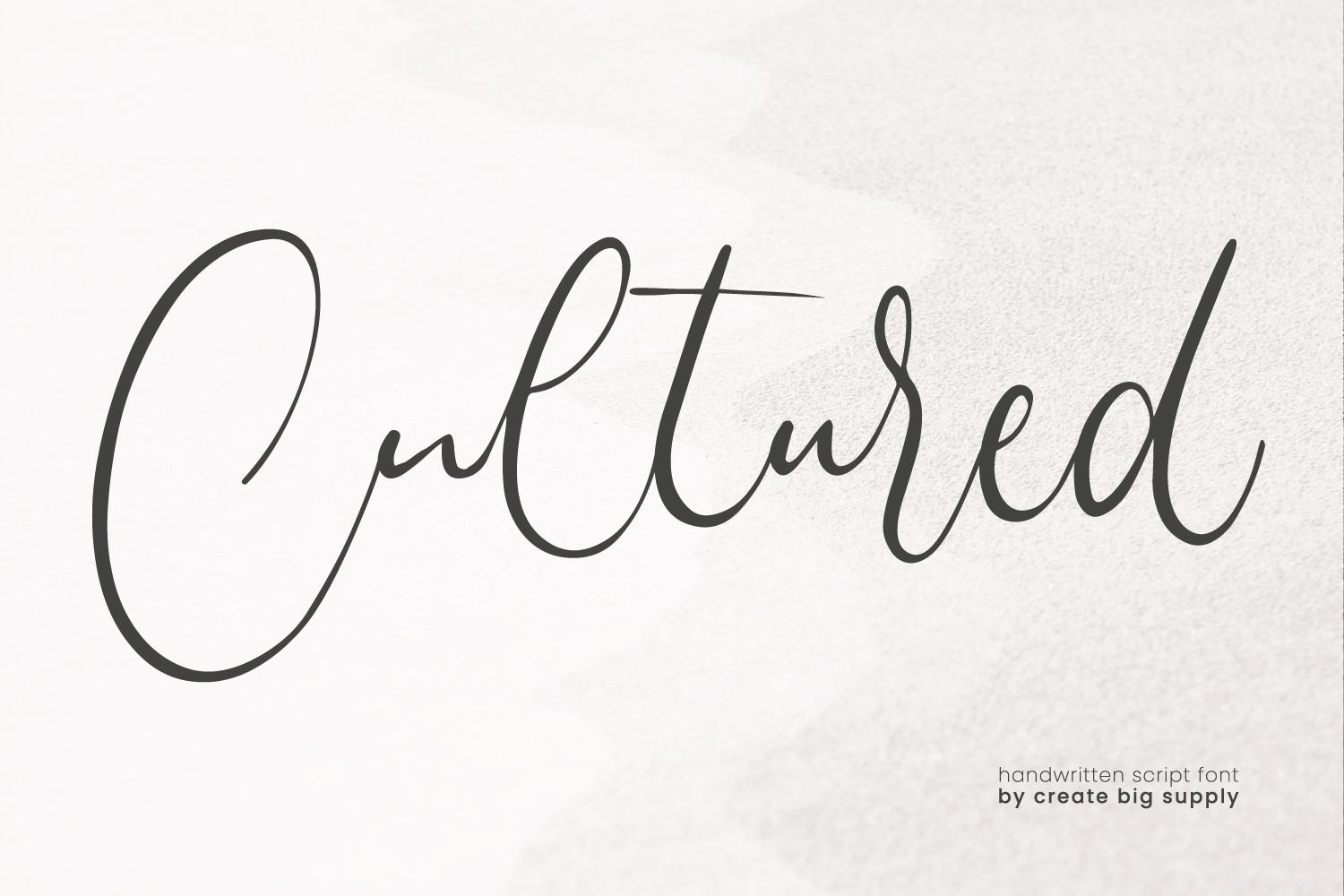
Cultured Font Description
Cultured is a lovely and delicate script font that exudes elegance and class. This font was particularly crafted for those who need a beautiful and refreshing look to their designs. Cultured is PUA encoded which means you can access all of the amazing glyphs and ligatures with ease!